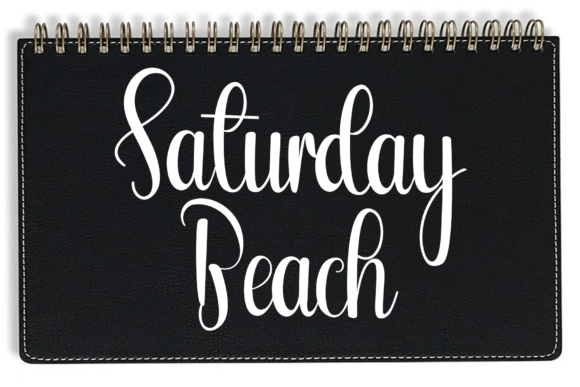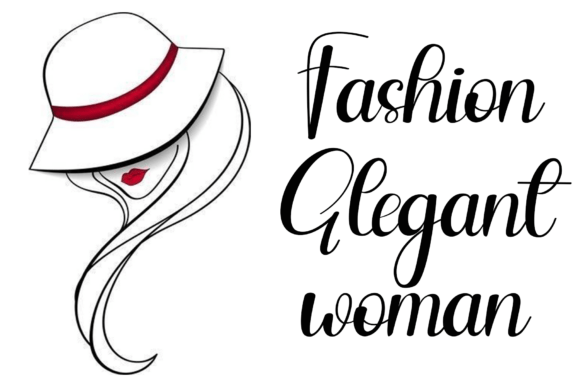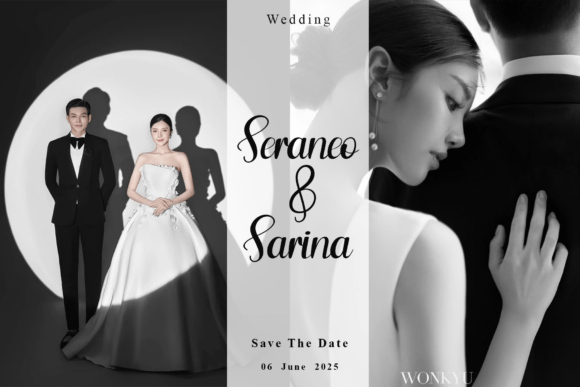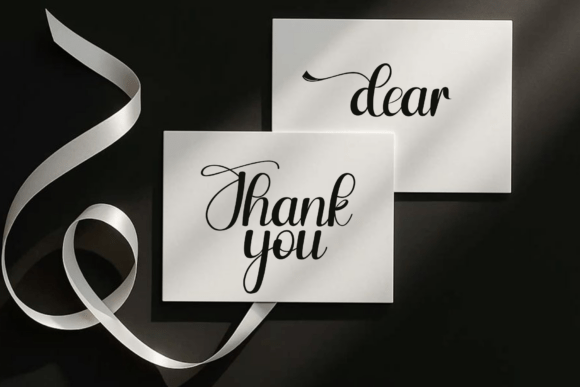
Introducing Grandma Font: A Timeless Classic with a Contemporary Twist
Are you tired of using the same old fonts in your design projects? Look no further than Grandma Font, a stylish handwritten font that brings a touch of elegance and sophistication to any design. Inspired by timeless classic calligraphy, Grandma Font is a beautifully balanced and varied font that is sure to enhance the beauty of your projects.
The Inspiration Behind Grandma Font
Grandma Font is inspired by the classic calligraphy of the past, but with a contemporary twist. The font’s creator aimed to capture the essence of traditional calligraphy while infusing it with a modern atmosphere. The result is a font that is both nostalgic and fresh, perfect for designers and crafters looking for a unique and stylish font.
Key Features of Grandma Font
So, what makes Grandma Font so special? Here are just a few of its key features:
- Stylish Handwritten Design: Grandma Font is a handwritten font with a stylish and elegant design. Its smooth lines and curves make it perfect for a wide range of design projects.
- Contemporary Atmosphere: While Grandma Font is inspired by classic calligraphy, it has a distinctly contemporary atmosphere. This makes it perfect for designers and crafters who want to add a touch of modernity to their projects.
- Impeccable Form: Grandma Font is designed with impeccable form in mind. Its balanced and varied design makes it easy to read and visually appealing.
- Balanced and Varied: Grandma Font is carefully crafted to be both balanced and varied. This means that it can be used for a wide range of design projects, from headings and titles to body text and more.
Uses for Grandma Font
So, what can you use Grandma Font for? The possibilities are endless! Here are just a few ideas to get you started:
- Branding and Logo Design: Grandma Font is perfect for branding and logo design projects. Its stylish and elegant design makes it ideal for creating memorable and impactful logos.
- Wedding and Event Design: Grandma Font is also perfect for wedding and event design projects. Its romantic and sophisticated design makes it ideal for creating beautiful wedding invitations, programs, and more.
- Packaging Design: Grandma Font can also be used for packaging design projects. Its stylish and elegant design makes it perfect for creating eye-catching and memorable packaging.
- Digital Design: Finally, Grandma Font can be used for a wide range of digital design projects, from social media graphics and blog posts to website headers and more.
Tips for Using Grandma Font
Here are a few tips for using Grandma Font in your design projects:
- Use it as a Headline Font: Grandma Font is perfect for use as a headline font. Its stylish and elegant design makes it ideal for grabbing attention and creating impact.
- Pair it with a Sans-Serif Font: For body text, consider pairing Grandma Font with a sans-serif font. This will create a nice contrast and make your text easy to read.
- Experiment with Colors and Textures: Grandma Font looks great in a wide range of colors and textures. Don’t be afraid to experiment and find the perfect combination for your design project.
In conclusion, Grandma Font is a stylish and elegant handwritten font that is perfect for designers and crafters looking for a unique and sophisticated font. With its timeless classic inspiration and contemporary atmosphere, Grandma Font is sure to enhance the beauty of your projects. Whether you’re working on a branding and logo design project, a wedding and event design project, or a digital design project, Grandma Font is a great choice.